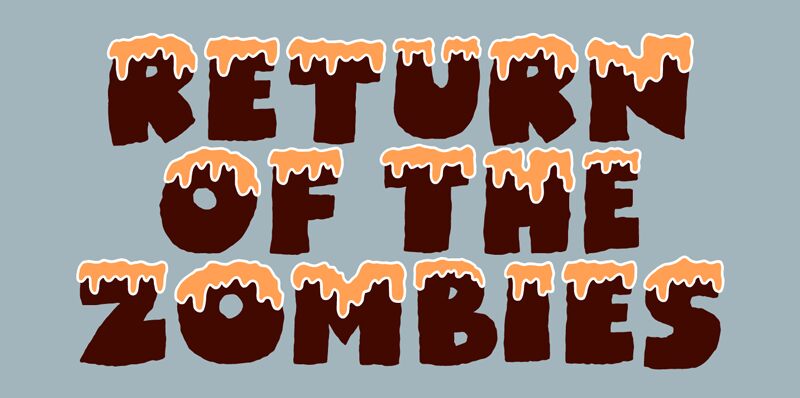
Crazy Fever, a captivating display font by Pizzadude, adds a touch of whimsy to any project. Its decorative style and extra-bold weight command attention, making it perfect for eye-catching headlines, logos, and posters. With its unique charm and versatility, Crazy Fever takes your designs to new heights. Whether you're creating winter-themed graphics or seeking to spark joy in your audience, this font's snowy charm will leave them captivated. Embrace the playfulness of Crazy Fever and infuse your projects with sheer delight.